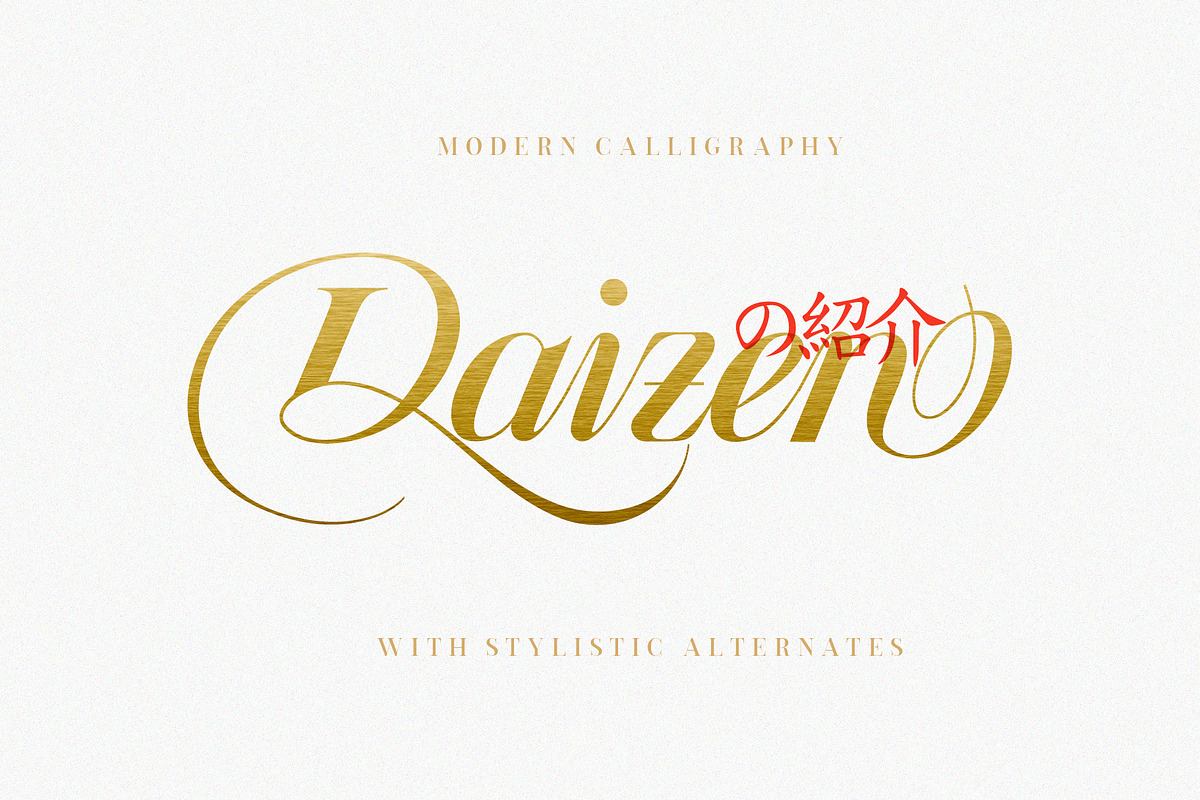
Daizen Script Font Free Download is an elegant, flowing script typeface that combines the beauty of cursive handwriting with modern, smooth curves. Its sophisticated and refined letterforms make it ideal for projects that require a personal and artistic touch, such as wedding invitations, branding, greeting cards, logos, and social media graphics.
With its graceful, fluid strokes, Daizen Script Font Free Download adds a sense of elegance and charm to your typography, making it perfect for both high-end designs and creative, personalized projects. Whether you're working on a romantic design, a fashion brand, or a bespoke invitation, this font brings beauty and personality to any layout.
Add elegance and artistry to your designs with Daizen Script Font Free Download, and create stunning, handwritten-style typography that speaks with grace and flair. Perfect for designers seeking a beautiful script font for sophisticated, creative projects.